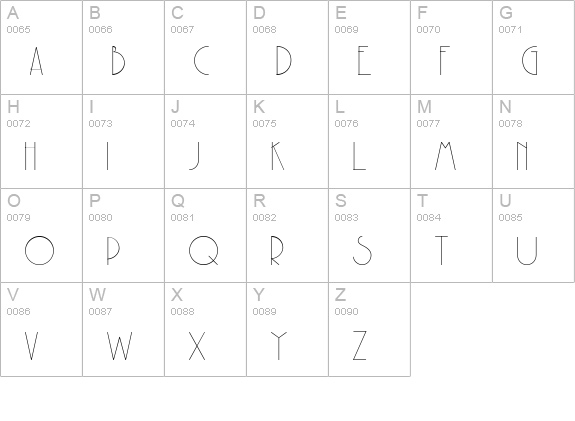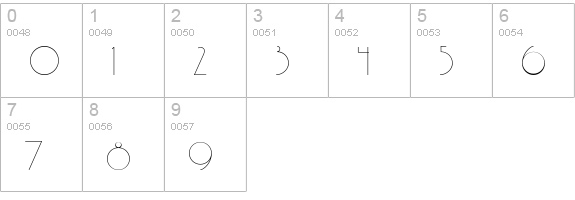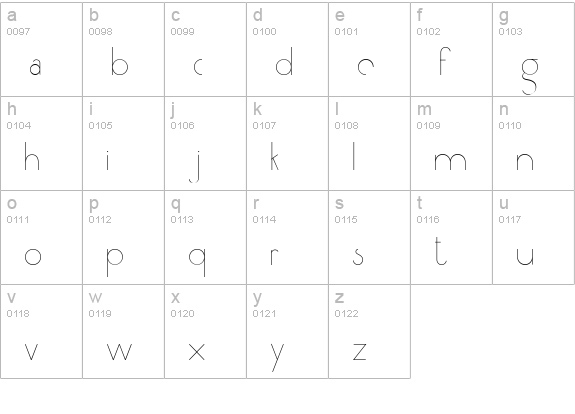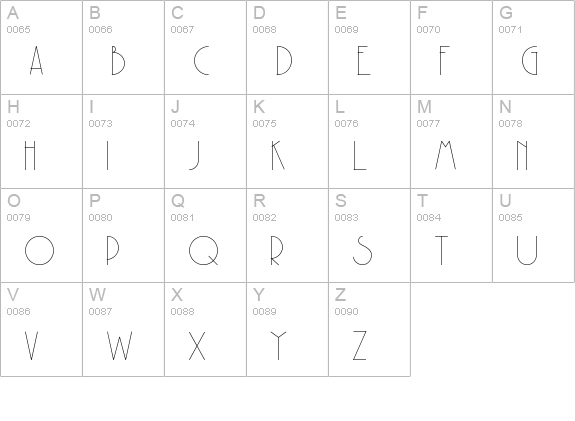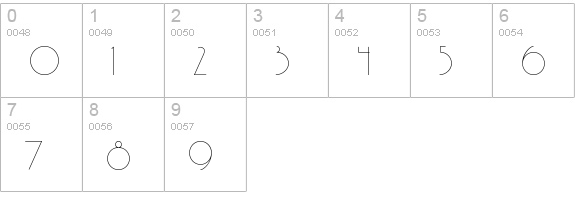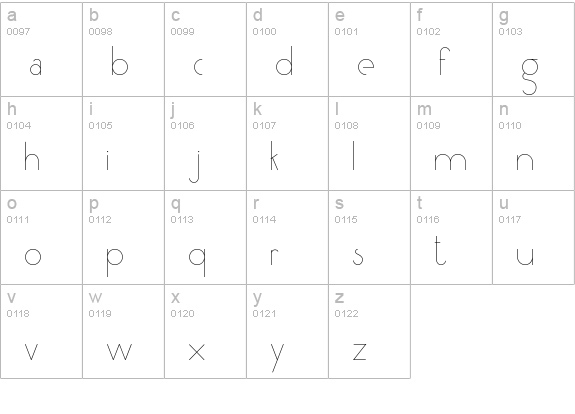
Party at Gatsby's Regular is the standard, neutral variant in the Party typeface family \xE2\x80\x94 well suited to general body text, paragraphs, and standard typographic work.
Get ready to step back in time to the roaring 1920s with Party at Gatsby's Regular font. This elegant and sophisticated font captures the essence of the jazz age, evoking images of flappers, champagne, and lavish parties. With its sleek lines and art deco-inspired design, Party at Gatsby's Regular font is perfect for adding a touch of vintage glamour to any project. What's even better is that Party at Gatsby's Regular font is completely free to download at FontsMarket.com. Whether you're designing invitations for a Gatsby-themed party, creating a retro-inspired logo, or adding a touch of nostalgia to your website, this font is freely available for you to use. The versatility of Party at Gatsby's Regular font makes it a must-have for any designer or typographer. Its timeless appeal ensures that it will never go out of style, and its high-quality design ensures that your projects will always look professional and polished. So why wait? Download Party at Gatsby's Regular font today and start adding a touch of vintage charm to your designs.